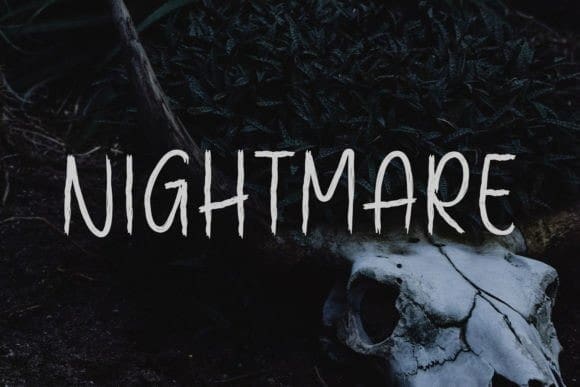
Halloween History Font
Halloween History Font is a cool and modern handwritten font. Whether you’re using it for crafts, digital design, presentations, or creating greeting cards, this font has the potential to be your go-to font, whatever the occasion.